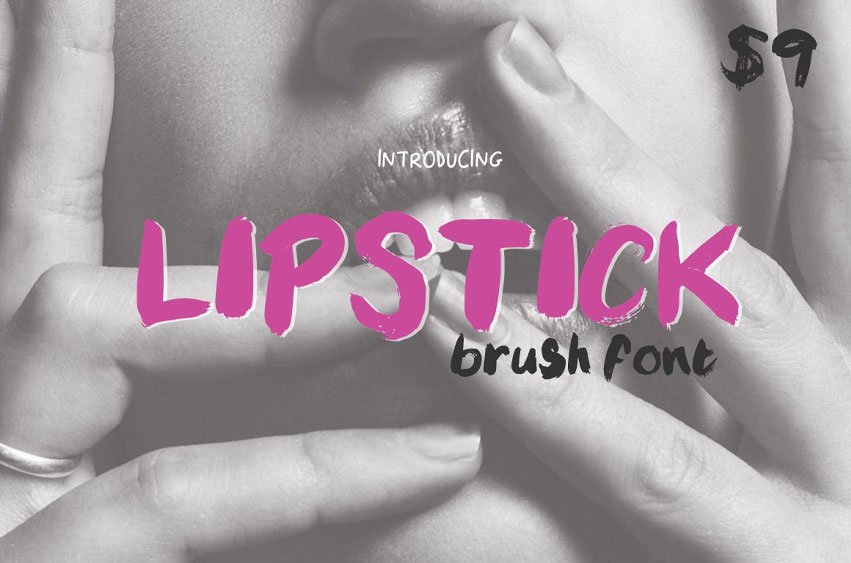
Lipstick Brush Font Hand-painted with acrylics, and then scanned and vectorised.
Lipstick Brush is a gorgeous and textured font that works perfectly for edgy designs and displays.